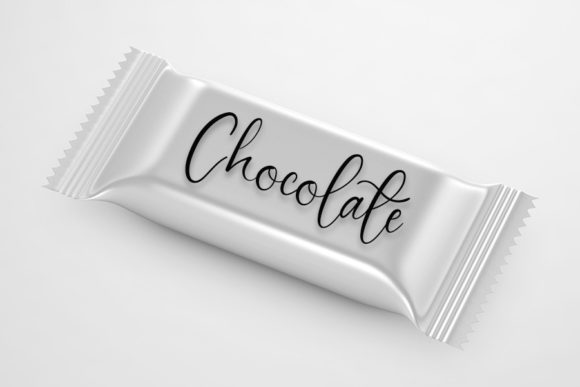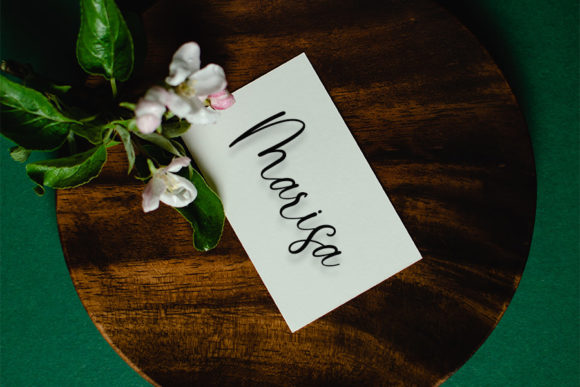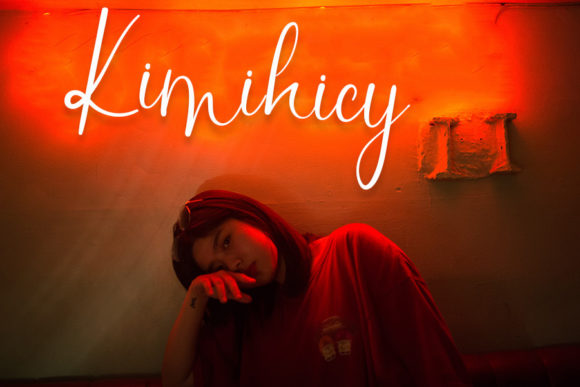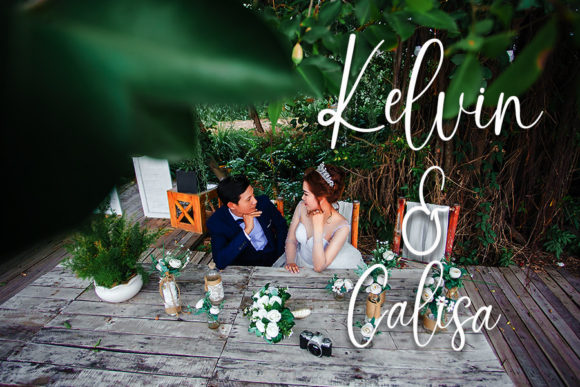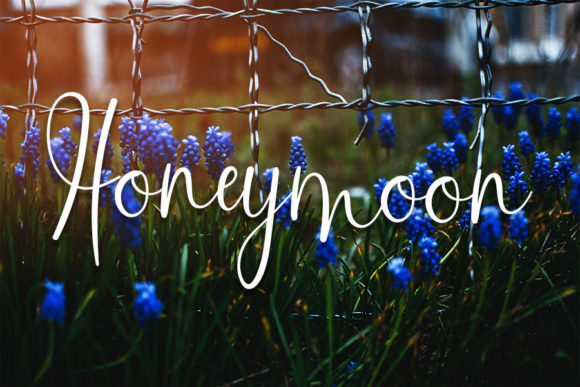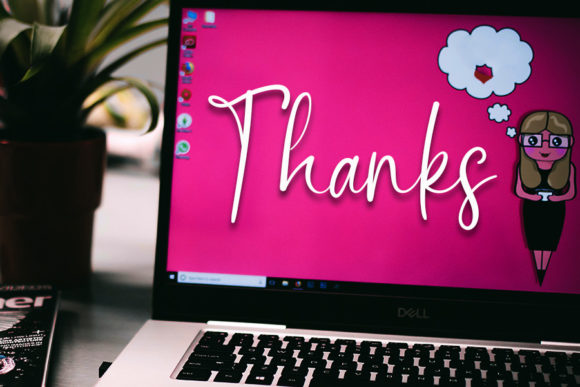
Kingland Font
“Kingland” Font: A Fusion of Timeless Calligraphy and Modern Flair
Introducing “Kingland,” a captivating handwritten font that seamlessly blends the elegance of classic calligraphy with contemporary design elements. With its impeccable form and sophisticated atmosphere, “Kingland” stands out as a versatile choice for a wide range of design projects.
Drawing inspiration from the graceful strokes of timeless calligraphy, “Kingland” adds a modern twist, infusing it with a fresh and trendy vibe. Its fluid lines and intricate details exude charm and sophistication, making it the perfect choice for logos, branding materials, invitations, and more.
One of the standout features of “Kingland” is its PUA encoding, which grants users easy access to all its glyphs and swashes. This means you can effortlessly customize your text, adding unique flourishes and accents to make it truly your own. Whether you’re a seasoned designer or just starting out, “Kingland” offers endless possibilities for creative expression.
But “Kingland” isn’t just about looks—it’s also practical. With its SEO-friendly qualities, it ensures that your message is not only visually appealing but also easily discoverable online. Its legibility and contemporary aesthetic make it a perfect choice for digital content creators looking to optimize their online presence and reach a wider audience.
In addition to its visual appeal, “Kingland” font also evokes a sense of sophistication and refinement, much like its namesake suggests. Whether used in luxury branding, upscale invitations, or editorial design, “Kingland” adds a touch of elegance and class to any project.
In conclusion, “Kingland” font offers the perfect fusion of timeless calligraphy and modern flair. With its impeccable form, PUA encoding, and SEO-friendly qualities, it’s a valuable asset for designers, marketers, and content creators alike. So why settle for ordinary typography when you can elevate your designs with the captivating allure of “Kingland”? Unlock its potential today and let your creativity reign supreme.